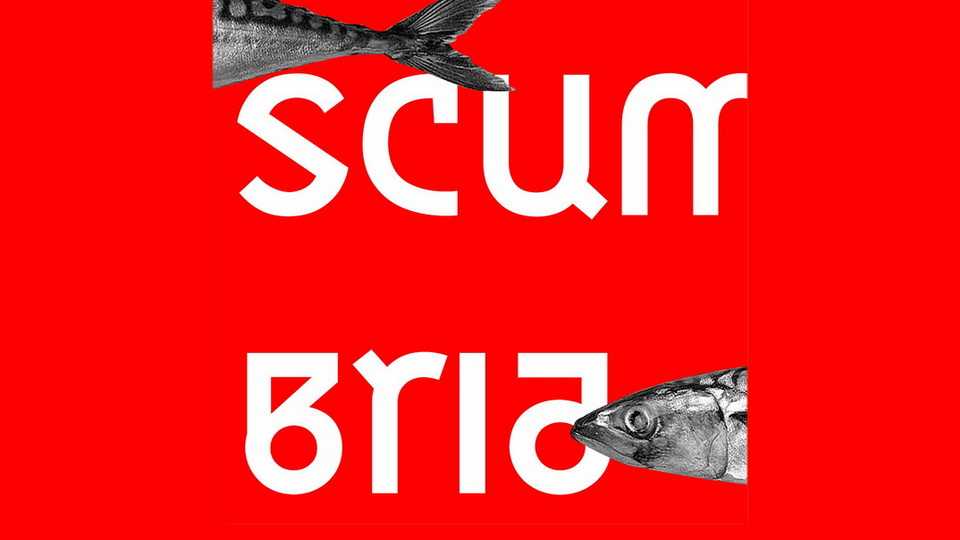
Download Scumbria font, a modern and original geometric typeface that redefines typographic balance with its innovative design.
Designer: Vasiliy Shishkin